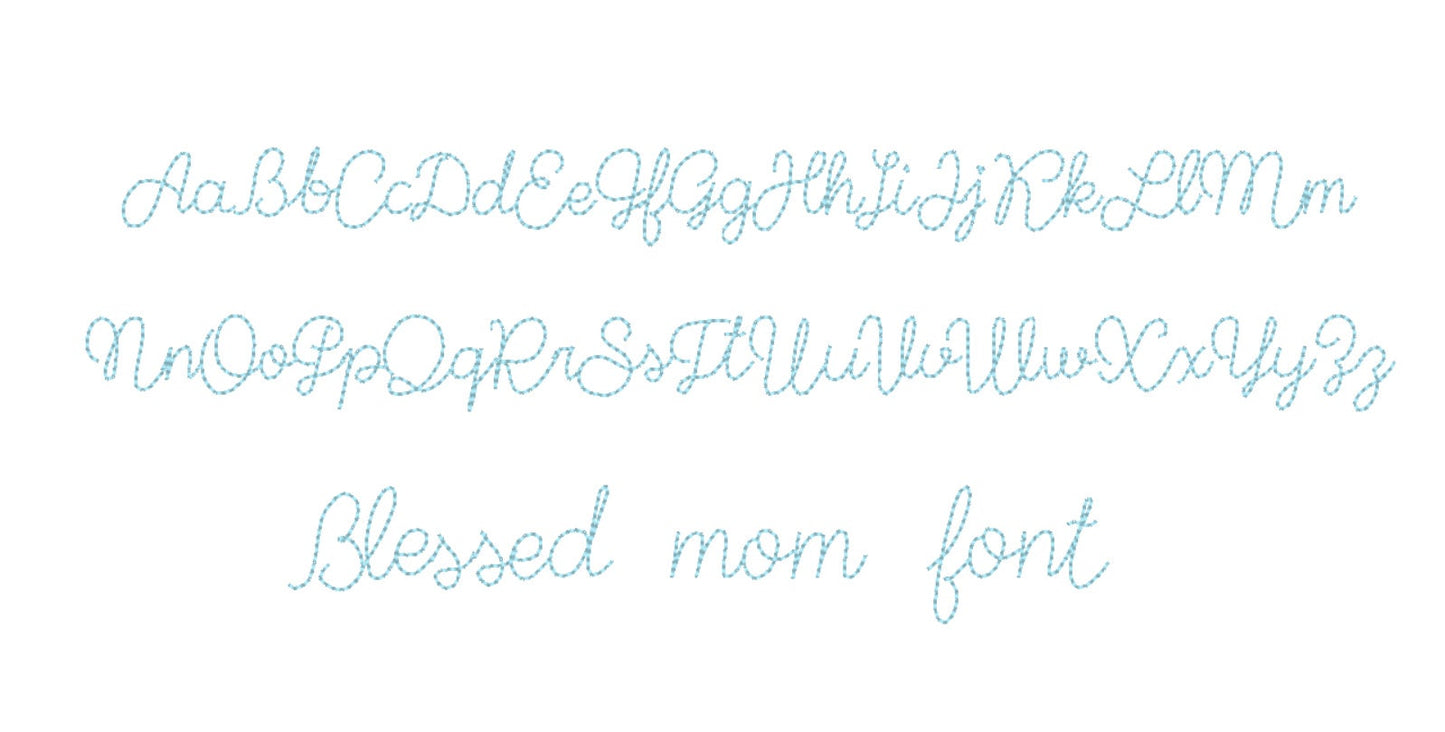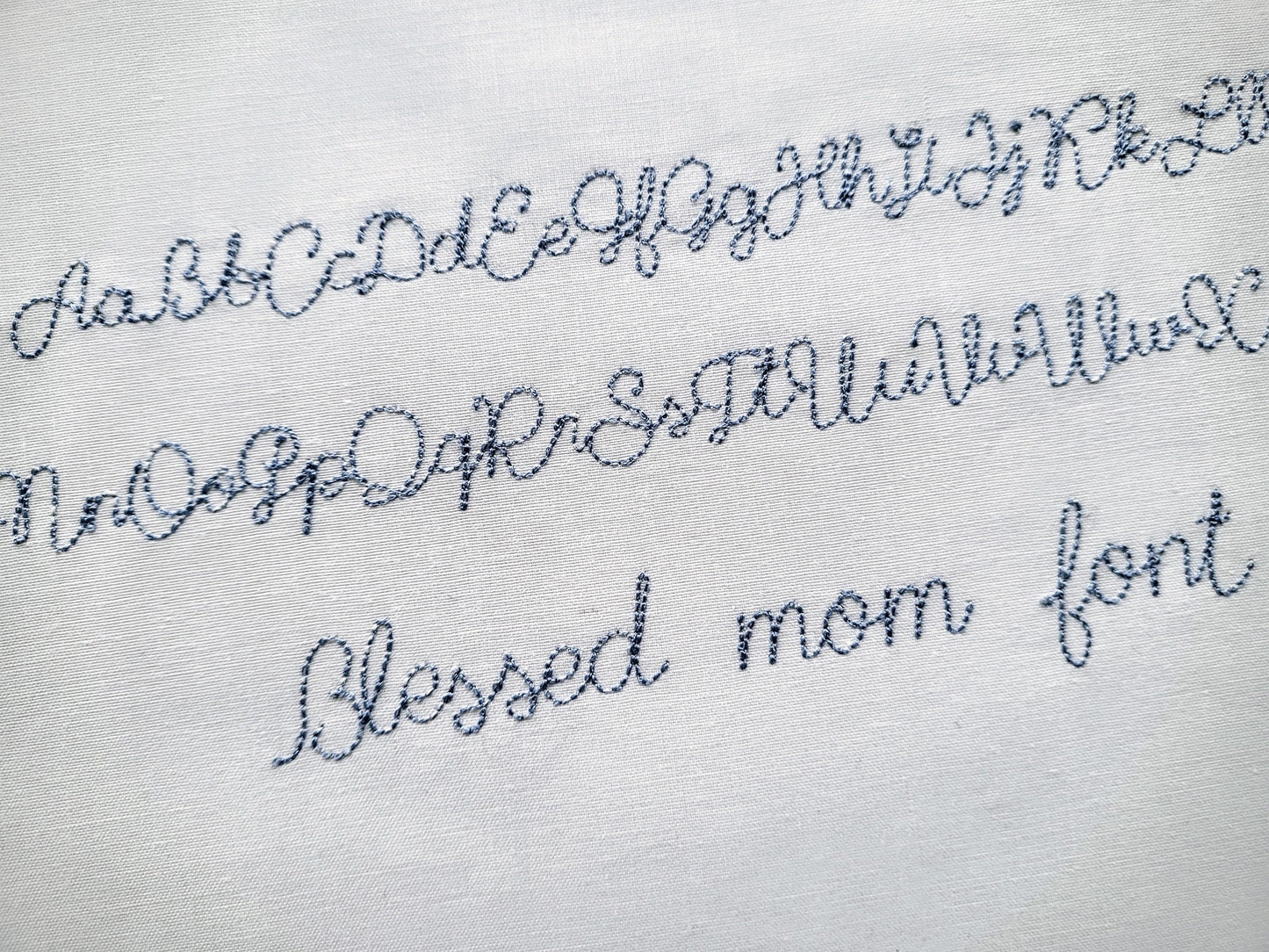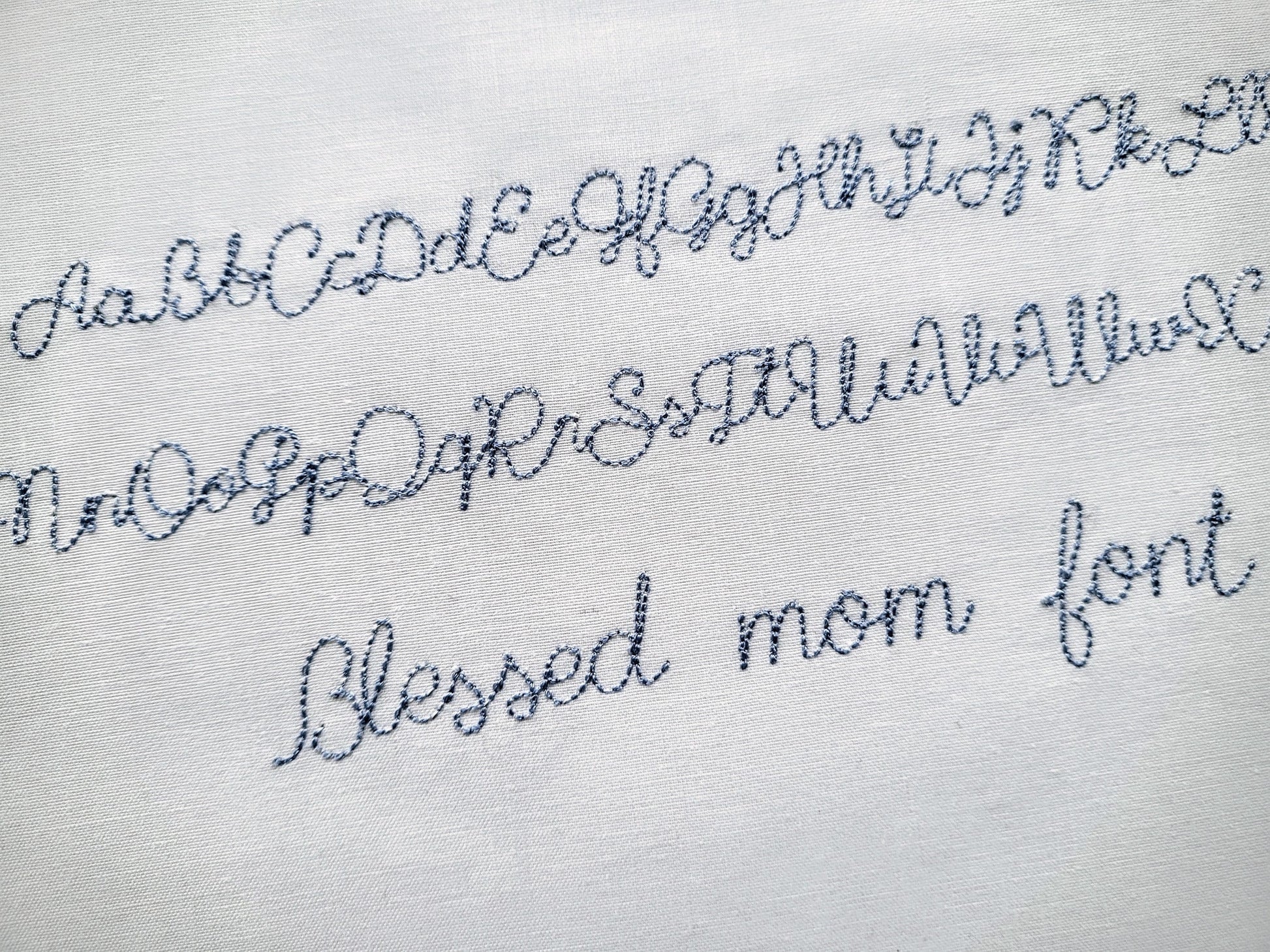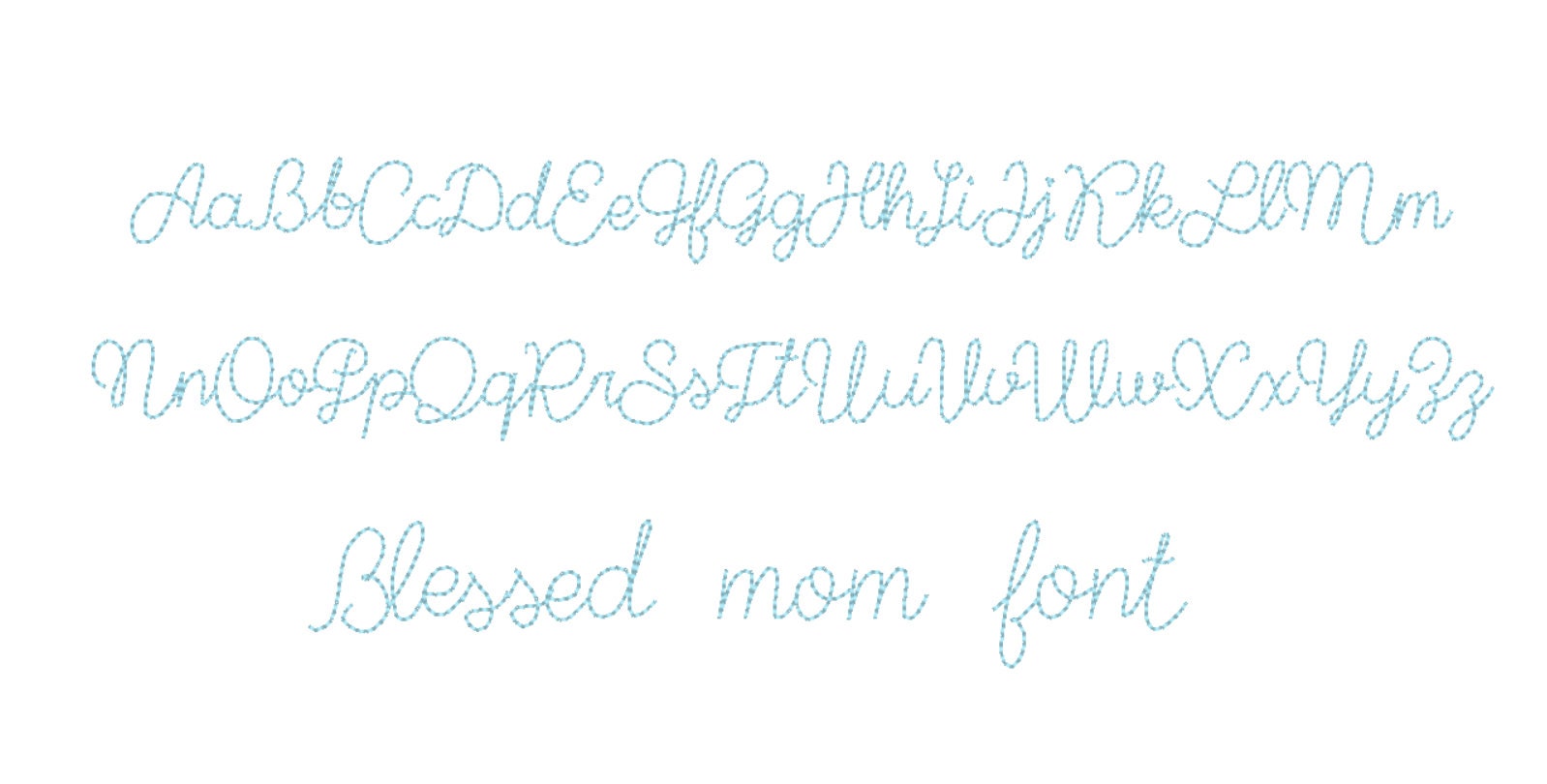
Or click to open the linkA tiny handwritten line font in outline stitch, for micro lettering on labels, cuffs, necklines and small gifts.
Uppercase and lowercase letters in five micro sizes; the smallest letters are about half an inch tall. A single thin line stitch, like handwriting.